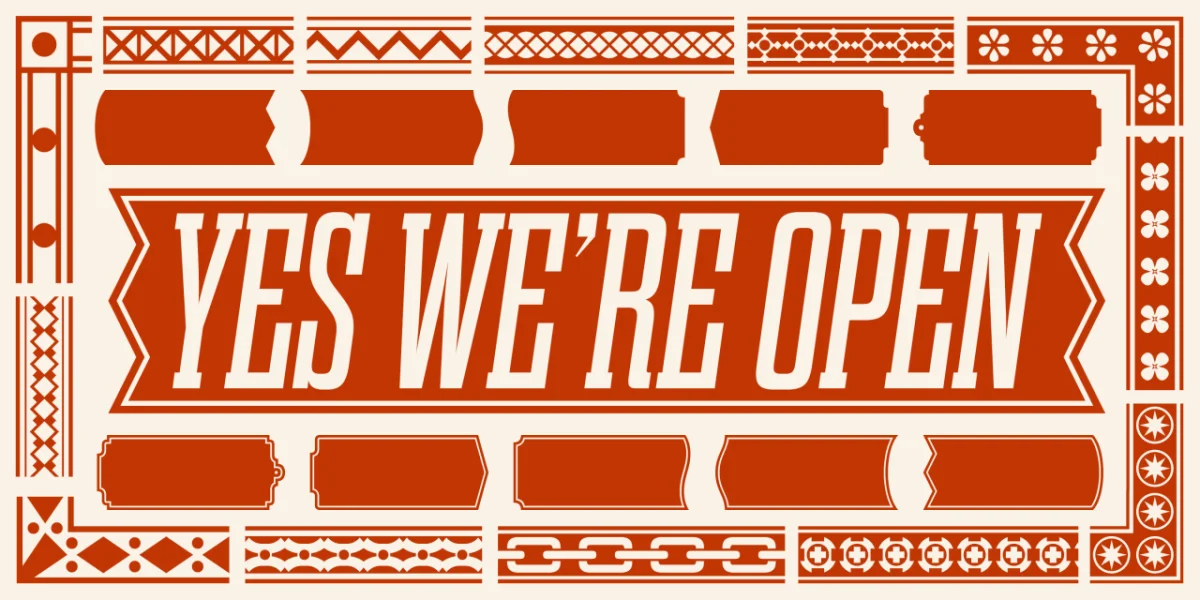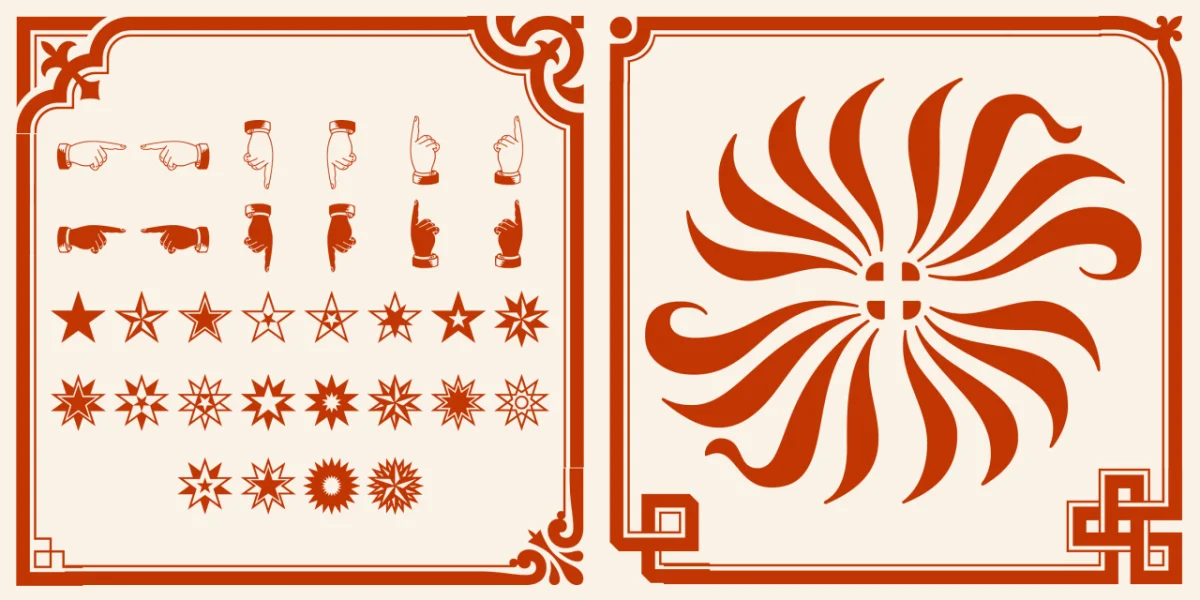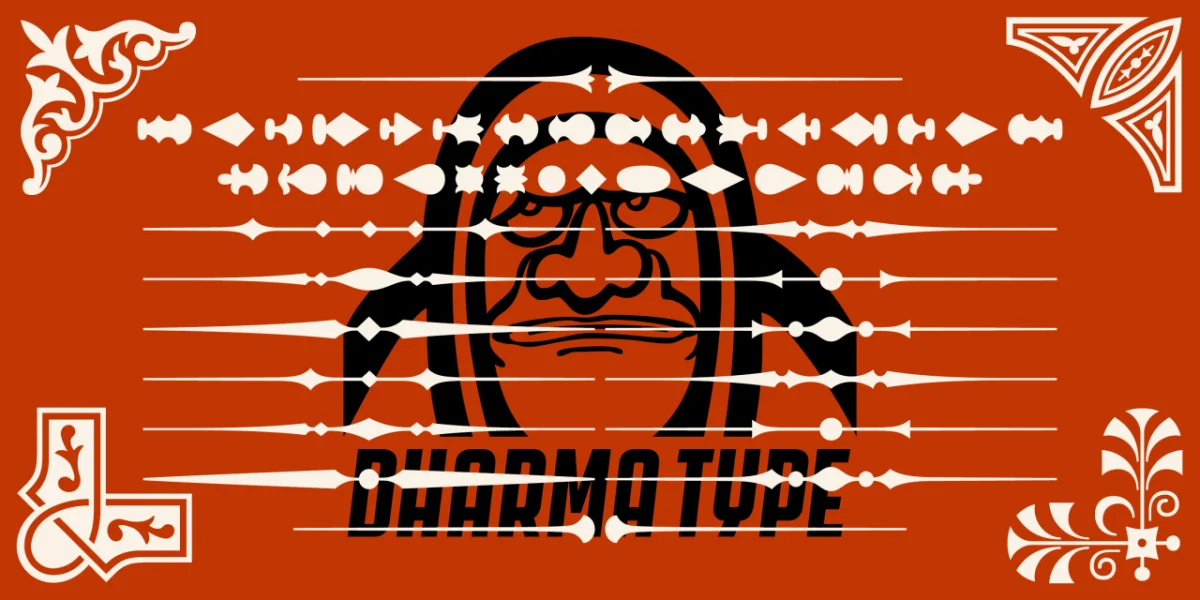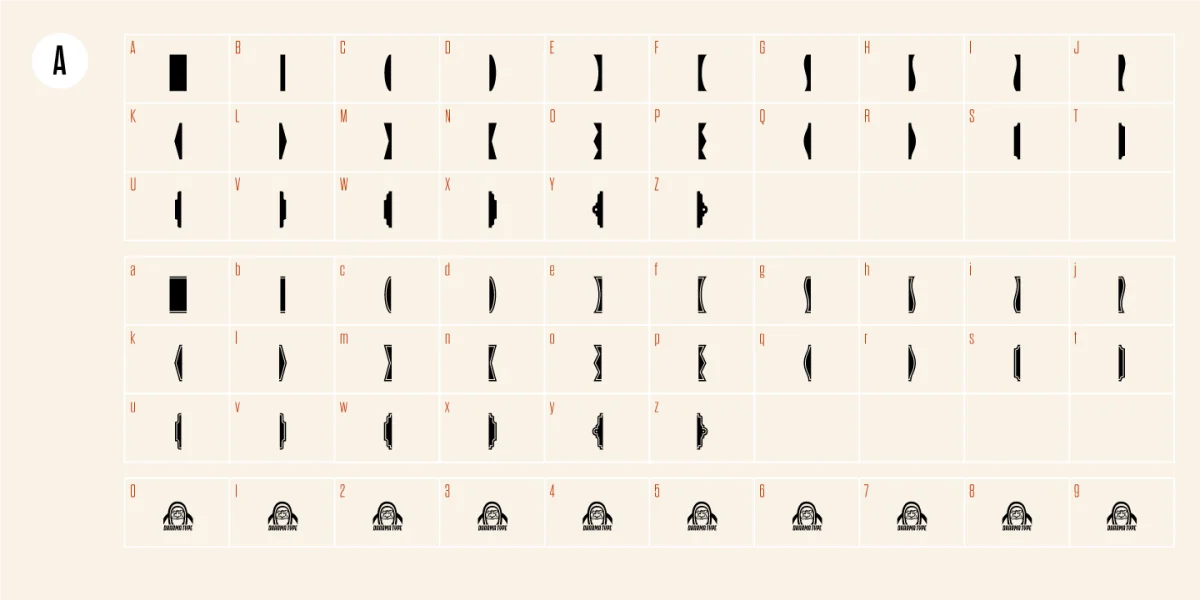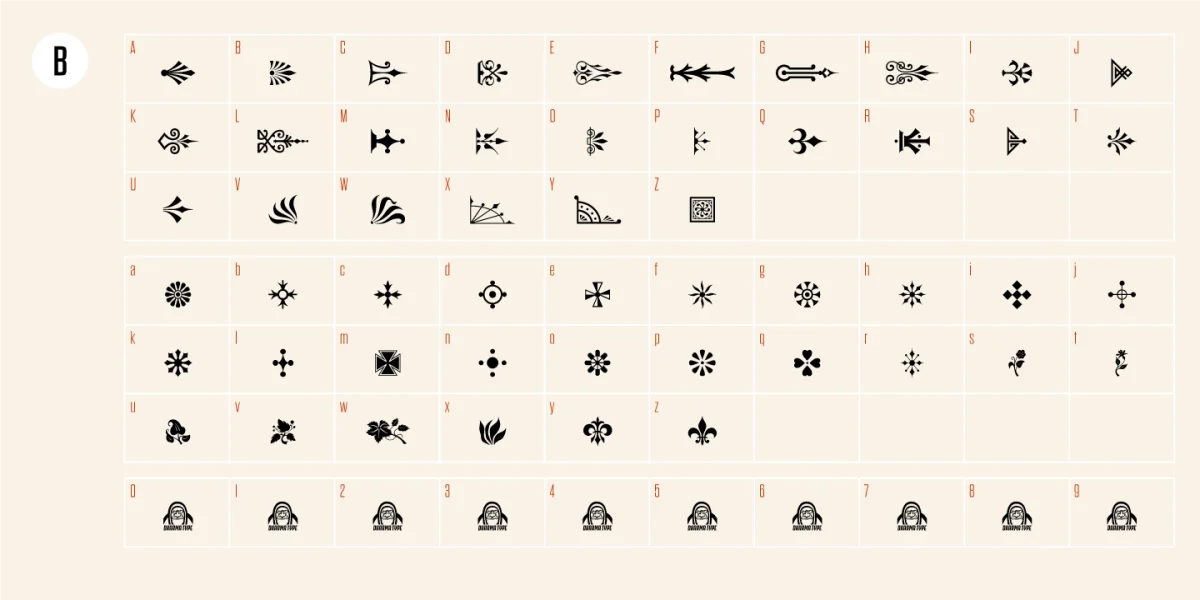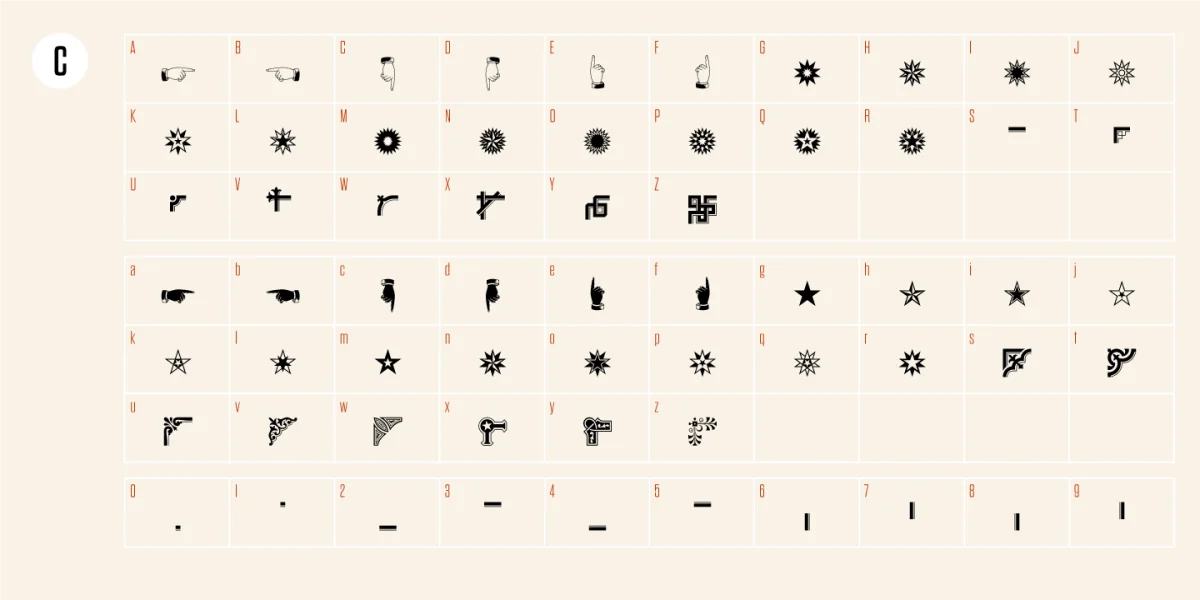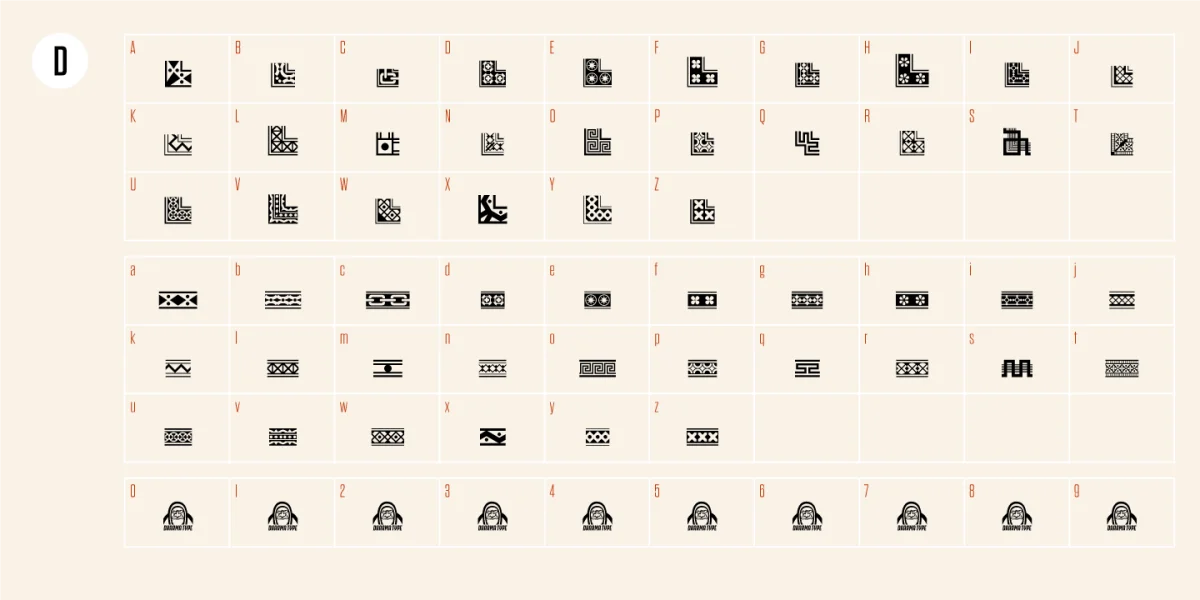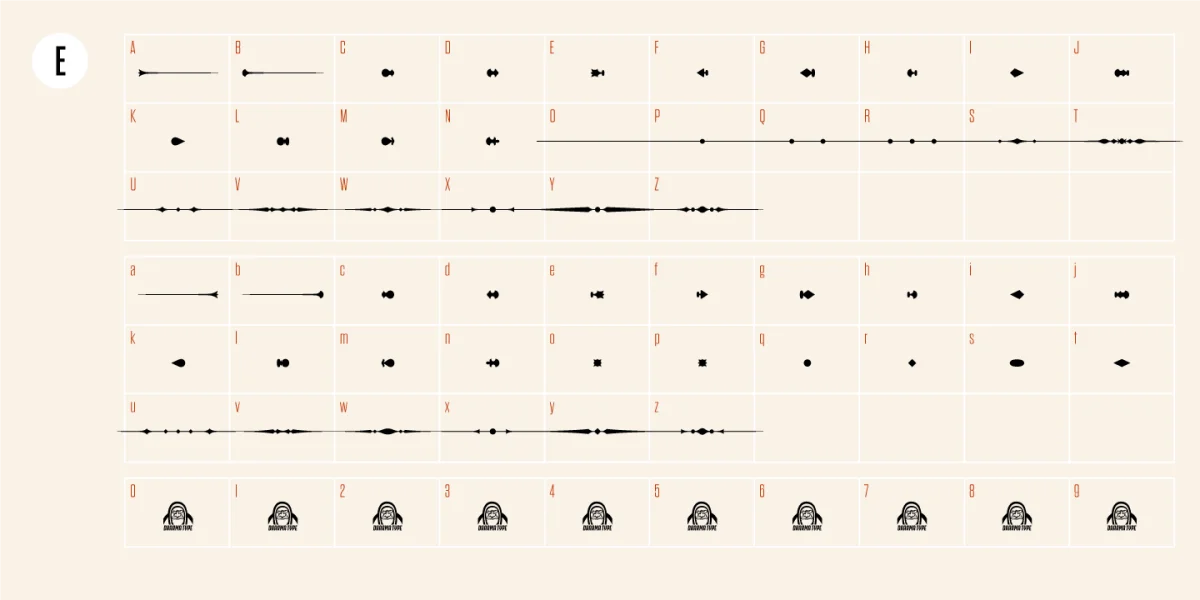
Gothic Extras was produced for Dharma Gothic, Dharma Slab, Rama Gothic, Rama Slab. This family includes borders, ornaments and frames designed using vintage catalog of Hamilton in 1800s as a model.